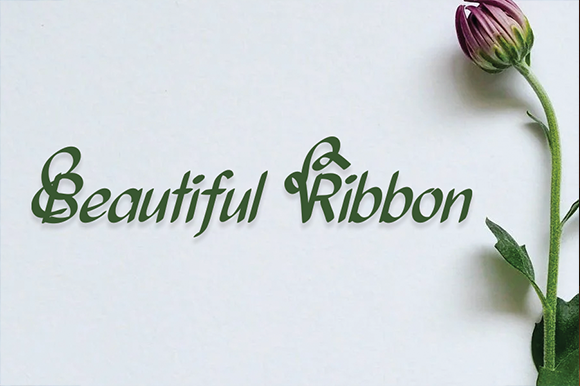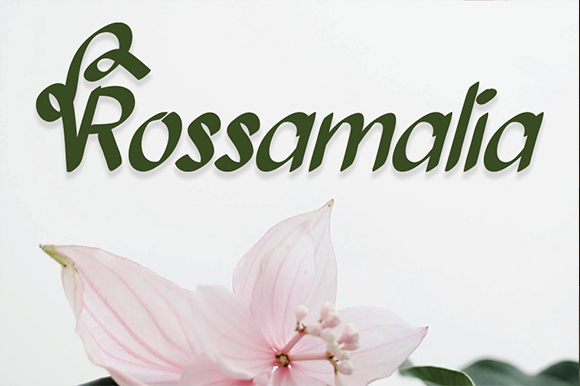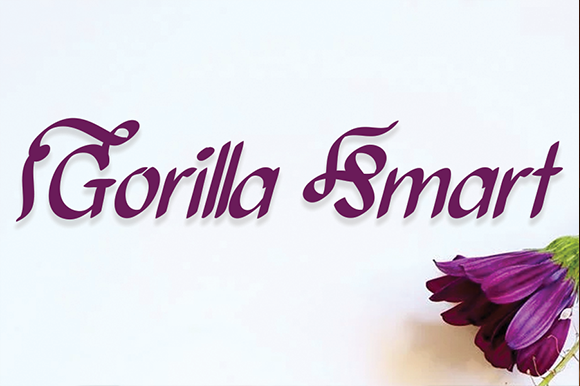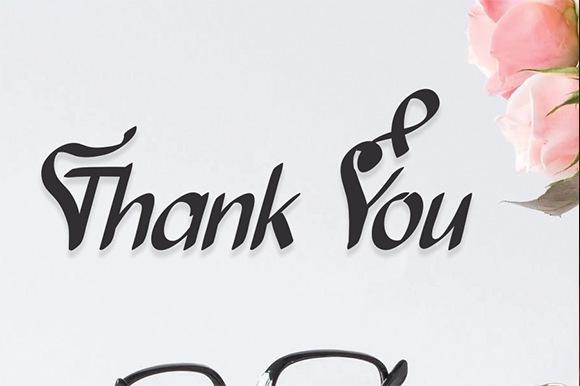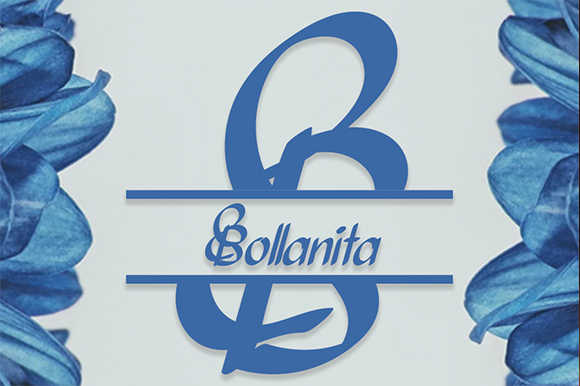
Bollanita Font: The Perfect Blend of Classic Charm and Friendly Elegance
In the world of typography, fonts play a crucial role in conveying the tone and personality of a design. For designers and crafters looking for a font that exudes classic charm and friendly elegance, Bollanita font is an excellent choice. This stunning display font has gained popularity for its unique blend of traditional style and approachable feel, making it perfect for creating original and outstanding designs.
The Characteristics of Bollanita Font
Bollanita font feels equally charming and elegant, with an incredibly classic style that is reminiscent of traditional typography. The font features beautiful curves, elegant lines, and a sophisticated aesthetic that is sure to add a touch of luxury to any design. However, what sets Bollanita apart from other classic fonts is its friendly feel. The font has a warm and approachable tone that makes it perfect for designs that require a personal touch.
Why Choose Bollanita Font?
So, why should designers and crafters choose Bollanita font for their projects? Here are a few reasons:
- Unique Style: Bollanita font has a unique style that is both classic and modern. The font’s elegant lines and curves make it perfect for creating sophisticated designs that stand out from the crowd.
- Versatility: Bollanita font is incredibly versatile and can be used for a wide range of design projects, from logos and branding to packaging and advertising.
- Legibility: The font is highly legible, making it perfect for designs that require a clear and concise message.
How to Use Bollanita Font in Your Designs
Using Bollanita font in your designs is easy. Here are a few tips to get you started:
- Pair it with Other Fonts: Bollanita font pairs well with other fonts, including sans-serif fonts like Arial and Helvetica. Experiment with different font combinations to create a unique look.
- Use it for Headlines: Bollanita font is perfect for headlines and titles. Use it to add a touch of elegance and sophistication to your designs.
- Add a Personal Touch: Bollanita font has a friendly feel that makes it perfect for designs that require a personal touch. Use it to add a human element to your designs.
Here are a few tips for designers and crafters looking to get the most out of Bollanita font:
- Experiment with Different Sizes: Bollanita font looks great in a variety of sizes. Experiment with different sizes to find the perfect fit for your design.
- Use it for Branding: Bollanita font is perfect for branding and logo design. Use it to create a sophisticated and elegant brand identity.
- Add a Pop of Color: Bollanita font looks great with a pop of color. Experiment with different colors to add a touch of personality to your designs.
In conclusion, Bollanita font is a stunning display font that is perfect for designers and crafters looking for a classic and elegant style with a friendly feel. Its unique blend of traditional style and approachable tone makes it perfect for creating original and outstanding designs. With its versatility, legibility, and ease of use, Bollanita font is an excellent choice for a wide range of design projects.
Whether you’re a designer or crafter, Bollanita font is sure to become a favorite in your collection. So why not give it a try and see how it can elevate your designs to the next level?